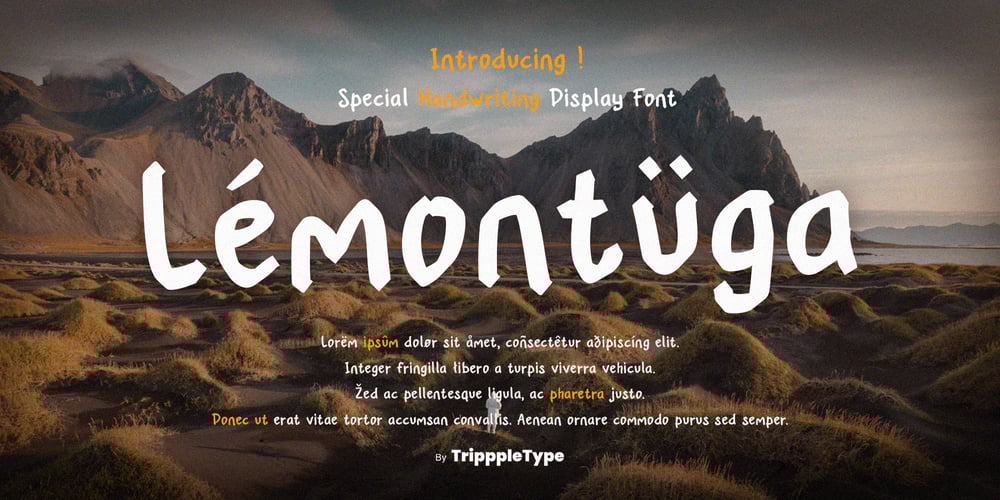
Lemontuga Handwritten Font Family was designed by Kang Nur and published by TripppleType. Lemontuga Handwritten contains 1 styles and family package options. Lemontuga brings a zesty, adventurous vibe to your typography. Perfect for scenic captions, inspiring story posts, and creative designs, this handwritten font carries a rugged, natural charm that makes it perfect for those who love the great outdoors. Its playful yet grounded style is ideal for content creators looking to tell bold, expressive stories.Add a fresh burst of personality to your content with Lemontuga. Download now and let this fun, adventurous font take your stories and videos to new heights.